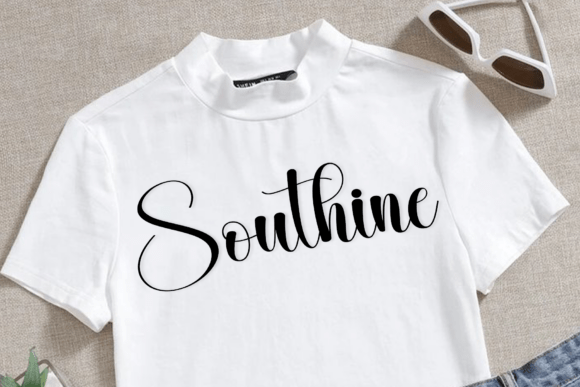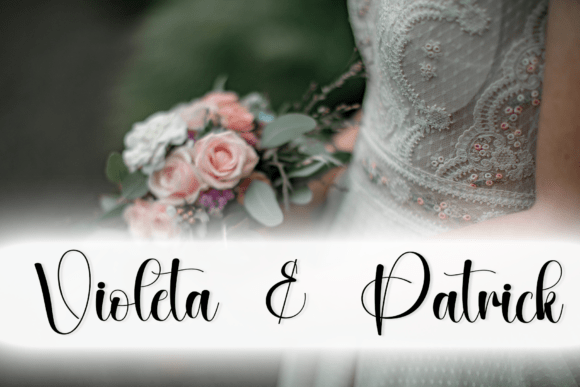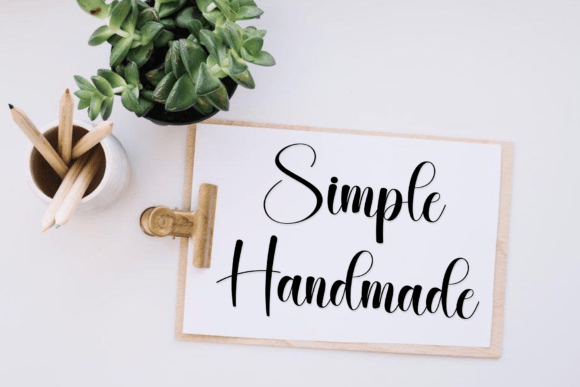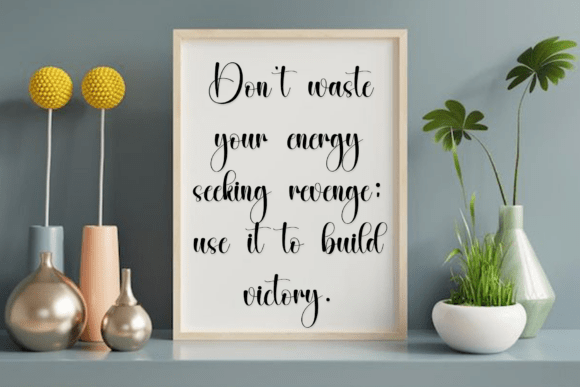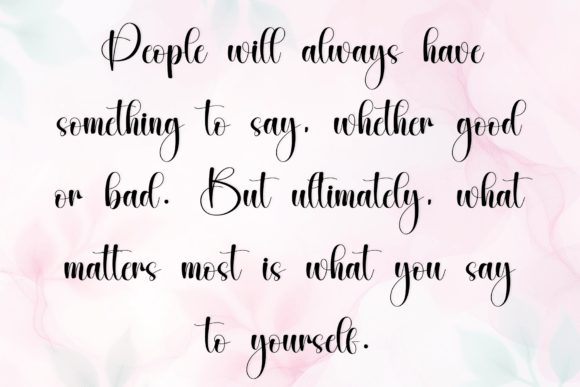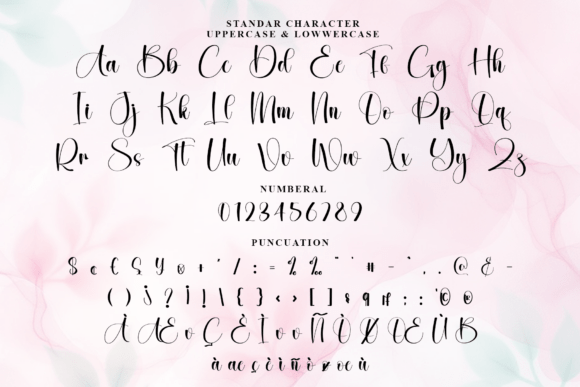
Discover the Elegance of Beliving Font: A Luxurious Script for Your Creative Projects
Are you searching for a font that embodies the perfect blend of modern sophistication and emotional depth? Look no further than the Beliving font, a stunning script typeface from a contemporary handwritten collection. This exquisite font is designed to bring a sense of personalized elegance and romance to your projects, making it an ideal choice for designers and crafters seeking to add a touch of luxury to their work.
The Characteristics of Beliving Font
The Beliving font boasts smooth, connected letterforms that exude a sense of fluidity and harmony. Its most striking feature, however, is the presence of stunning, sweeping swashes and elegant flourish details. These intricate elements add an undeniable touch of sophistication, elevating the font to a level of high-end elegance that is sure to captivate your audience.
One of the key benefits of the Beliving font is its versatility. Its professional yet unique calligraphy style ensures that your message is delivered with grace and flair, making it perfect for a wide range of applications. Whether you’re designing wedding invitations, premium branding materials, signature logos, heartfelt quotes, or feminine product packaging, this font is sure to make a lasting impression.
Ideal Applications for Beliving Font
So, what are the ideal applications for the Beliving font? The possibilities are endless, but here are a few ideas to get you started:
- Wedding Invitations: Add a touch of romance and sophistication to your wedding invitations with the Beliving font. Its elegant swashes and flourishes create a beautiful, high-end look that is sure to impress.
- Premium Branding: Elevate your brand with the Beliving font’s luxurious and modern script style. Perfect for high-end products or services, this font is sure to convey a sense of sophistication and elegance.
- Signature Logos: Create a lasting impression with a signature logo that features the Beliving font. Its unique and professional calligraphy style ensures that your logo stands out from the crowd.
- Heartfelt Quotes: Add a touch of emotional depth to your quotes with the Beliving font. Its sweeping swashes and elegant flourishes create a beautiful, eye-catching display that is sure to resonate with your audience.
- Feminine Product Packaging: Add a touch of femininity and elegance to your product packaging with the Beliving font. Its modern script style and luxurious feel make it perfect for high-end products.
Why Choose Beliving Font?
So, why choose the Beliving font for your creative projects? Here are just a few reasons:
- Unique and Professional Style: The Beliving font boasts a unique and professional calligraphy style that sets it apart from other fonts.
- Versatile: Perfect for a wide range of applications, from wedding invitations to product packaging.
- Elegant and Sophisticated: Adds a touch of elegance and sophistication to any project.
- Modern and Handwritten: Combines the best of modern and handwritten styles to create a truly unique font.
In conclusion, the Beliving font is a luxurious and emotional script font that is perfect for designers and crafters seeking to add a touch of elegance and romance to their projects. Its smooth, connected letterforms, stunning swashes, and elegant flourishes make it a standout choice for a wide range of applications. Whether you’re designing wedding invitations, premium branding materials, or product packaging, the Beliving font is sure to make a lasting impression. So why wait? Discover the elegance of Beliving font today and take your creative projects to the next level.